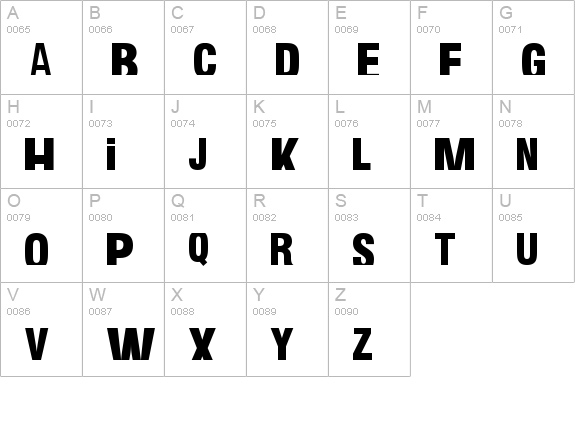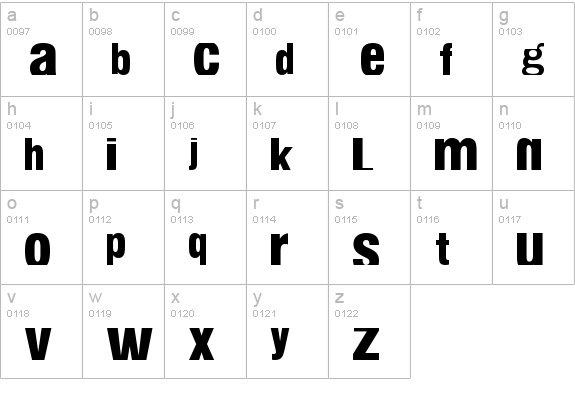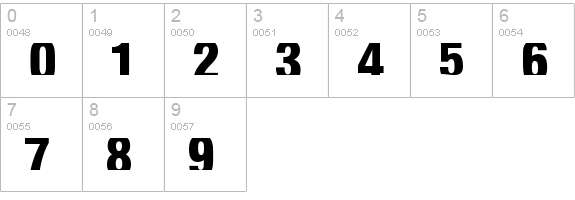
fabianestem Normal is the standard, neutral variant in the fabianestem typeface family \xE2\x80\x94 well suited to general body text, paragraphs, and standard typographic work.
Fabianestem Normal font is a versatile and elegant typeface that is perfect for a wide range of design projects. It combines classic elements with a modern twist, making it suitable for both professional and creative applications. This font features clean lines and well-defined letterforms that ensure excellent readability at any size. Its balanced proportions and subtle details make it a great choice for body text, headlines, logos, and more. One of the best things about Fabianestem Normal font is that it is freely available to download at FontsMarket.com. This means you can easily access and use this font without any restrictions. Whether you're a designer, a student, or an enthusiast, you can enjoy the benefits of this high-quality typeface without having to spend a dime. With Fabianestem Normal font, you can add a touch of sophistication and professionalism to your designs. Whether you're working on a branding project, a website design, or a print layout, this font will elevate your work and make it stand out from the crowd. So why wait? Head over to FontsMarket.com and download Fabianestem Normal font for free. Start using this versatile and elegant typeface today and take your designs to the next level.